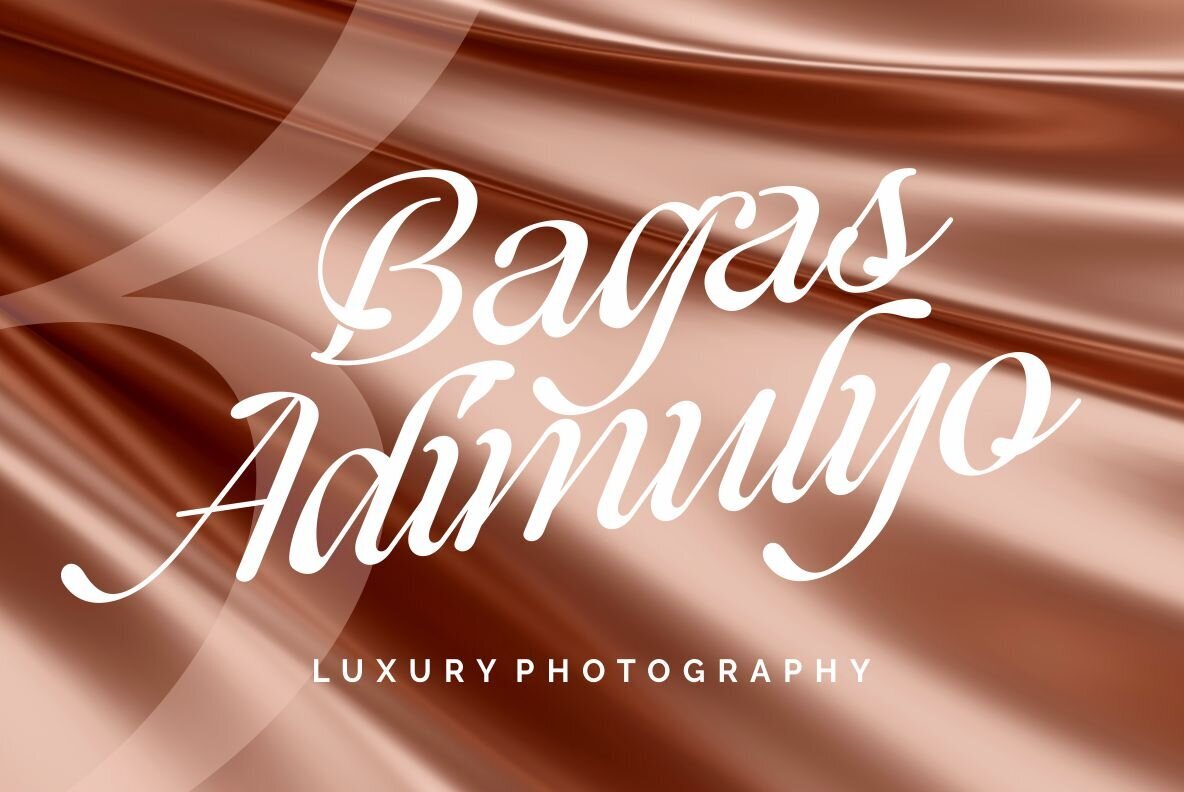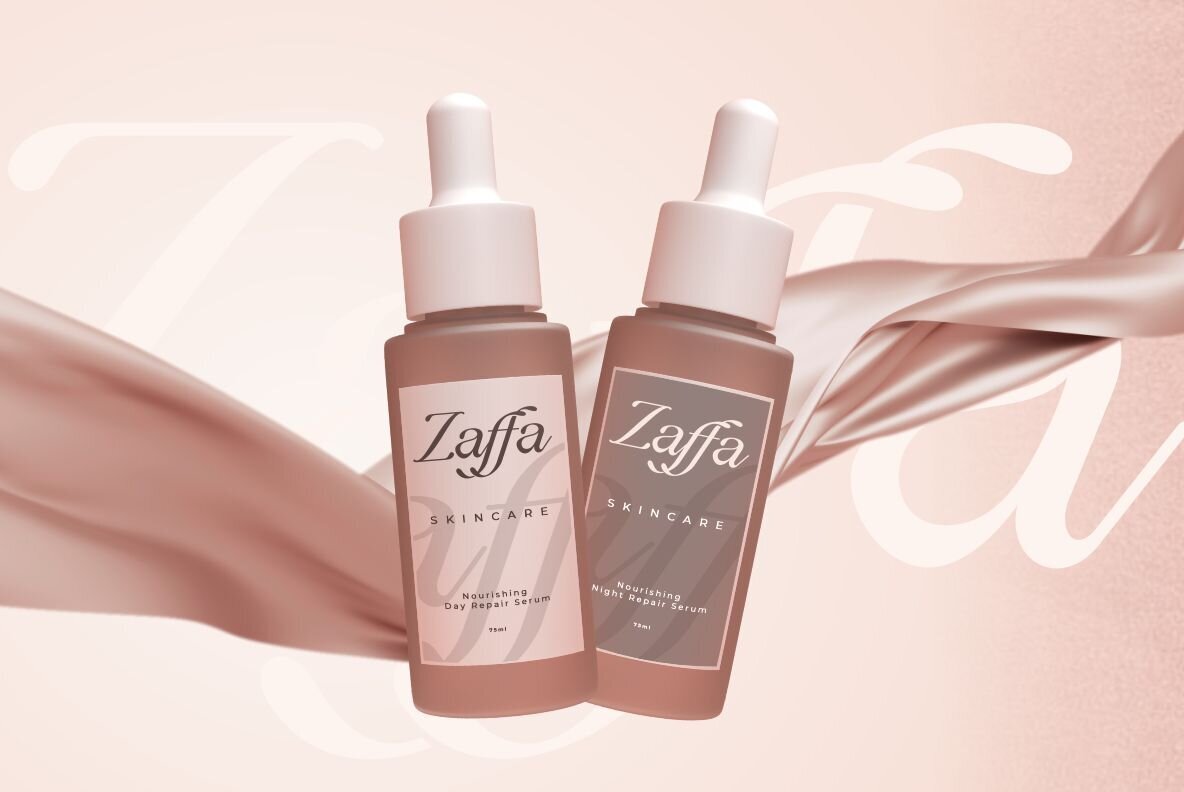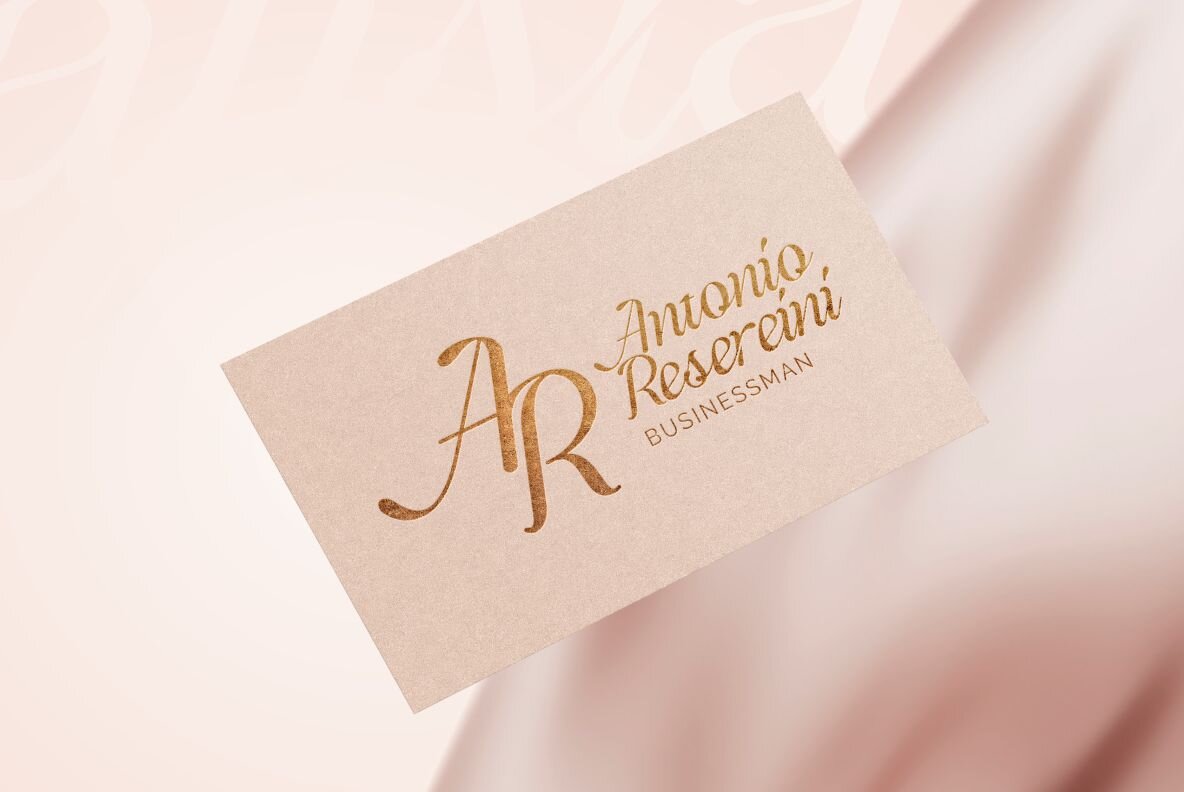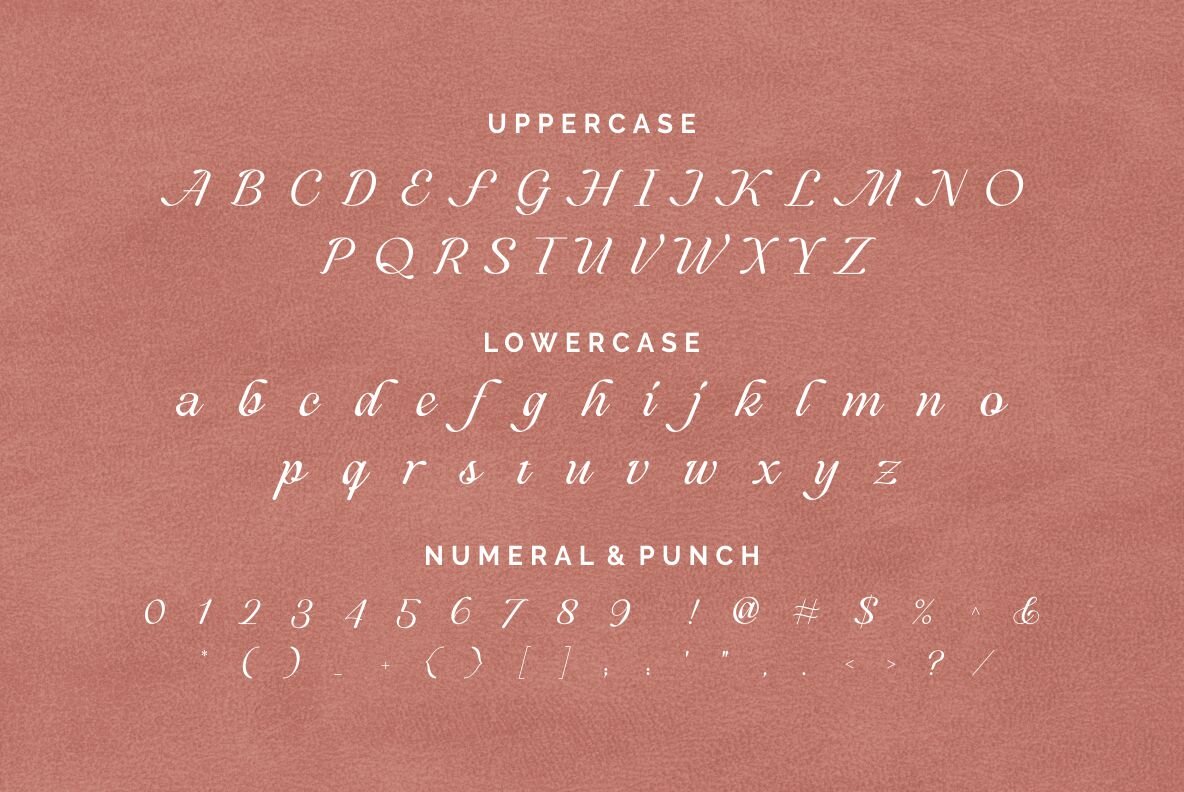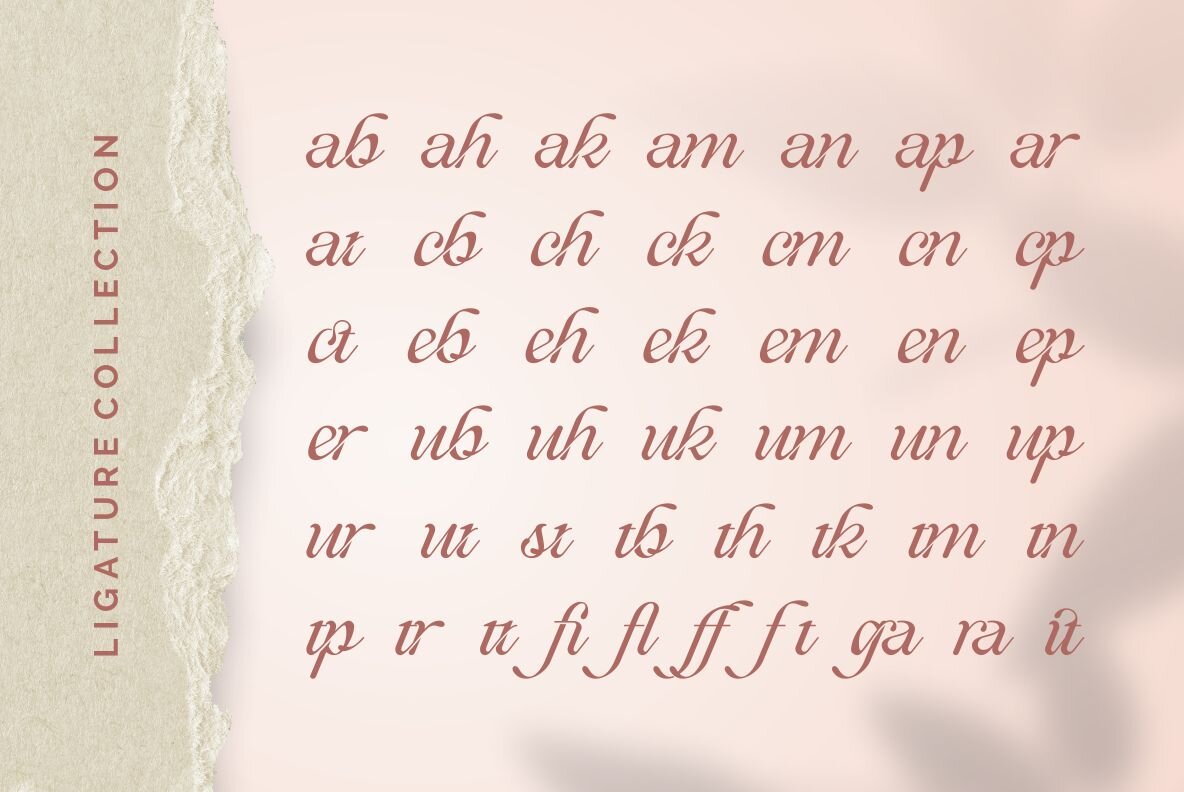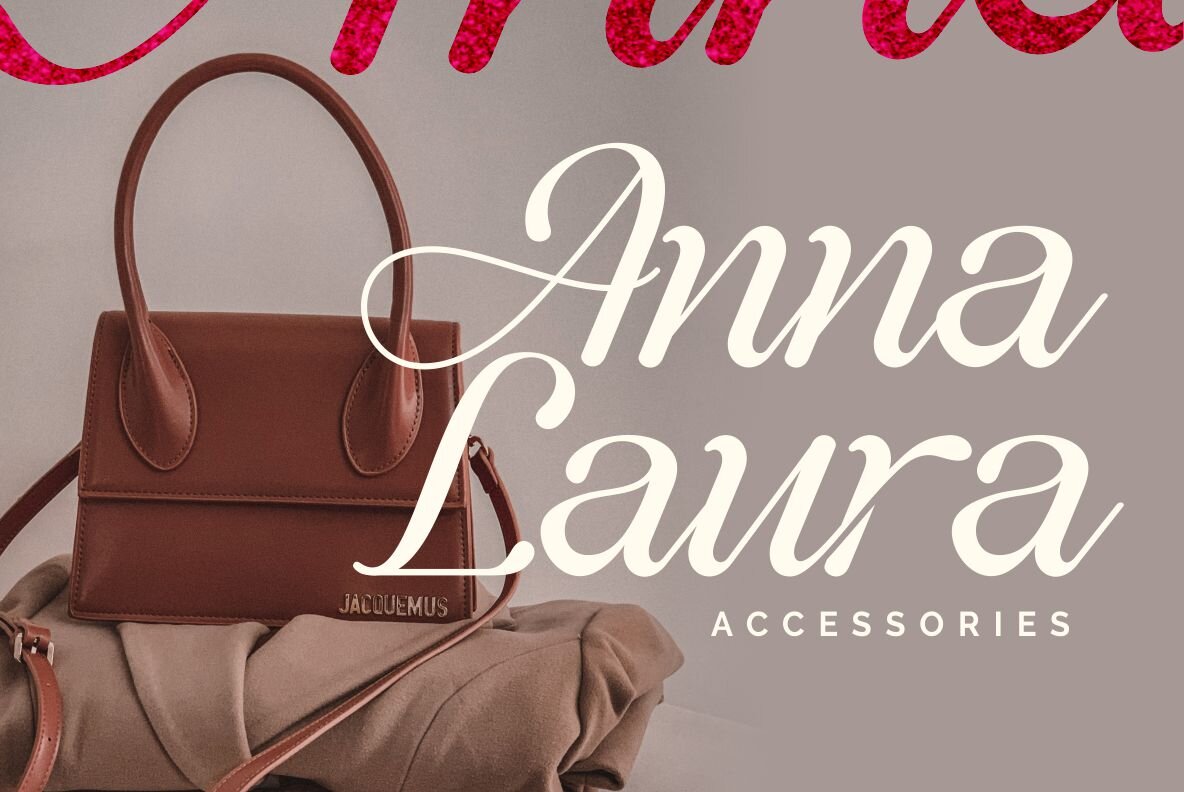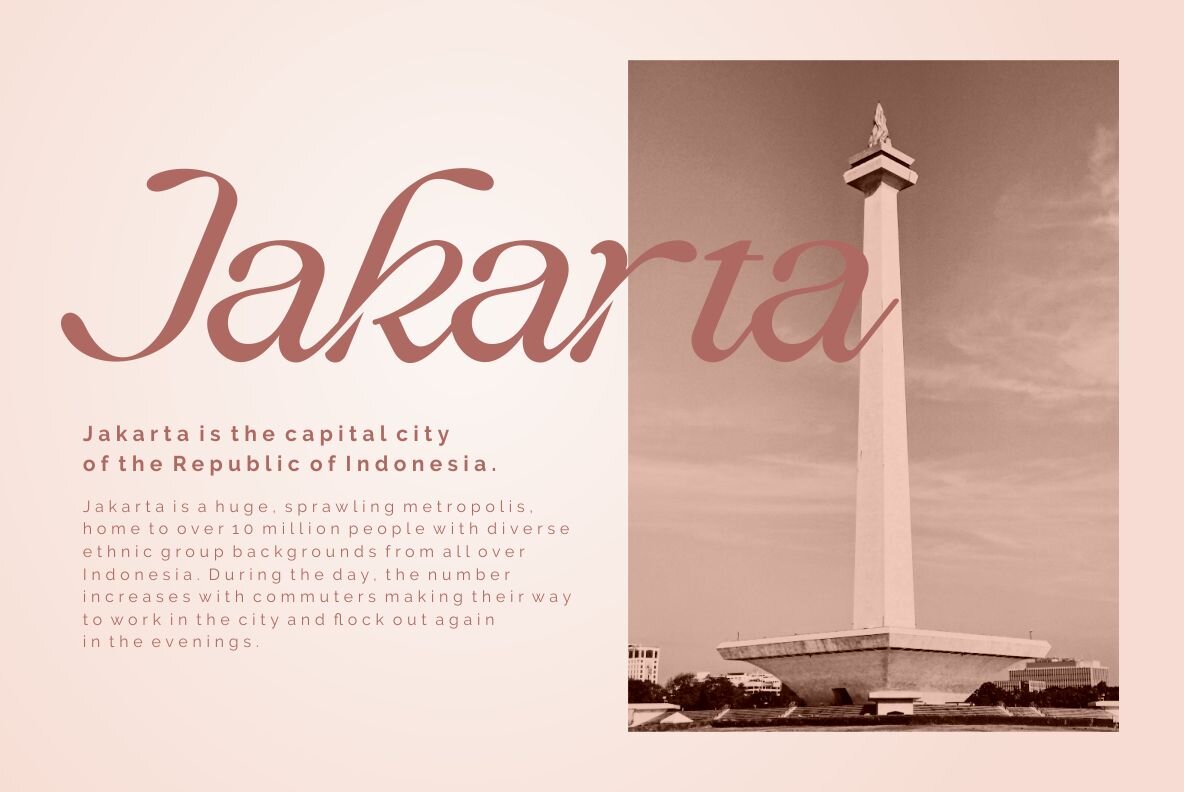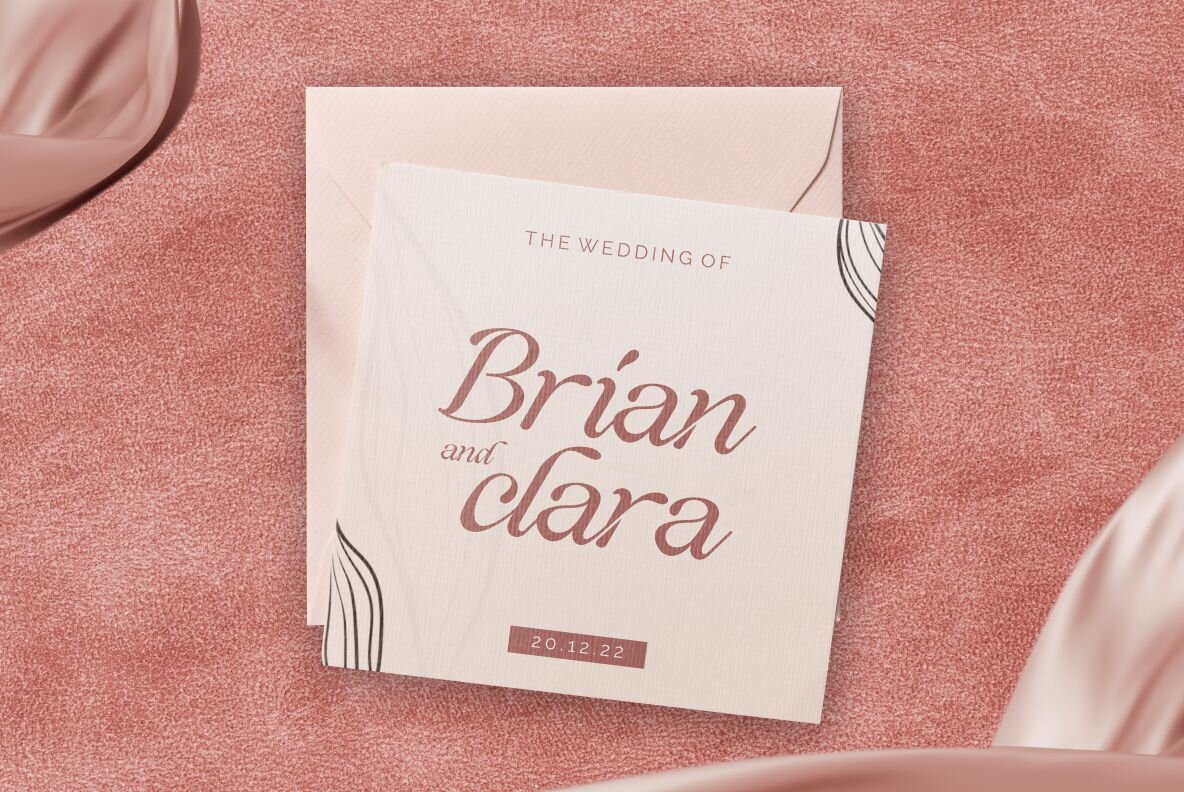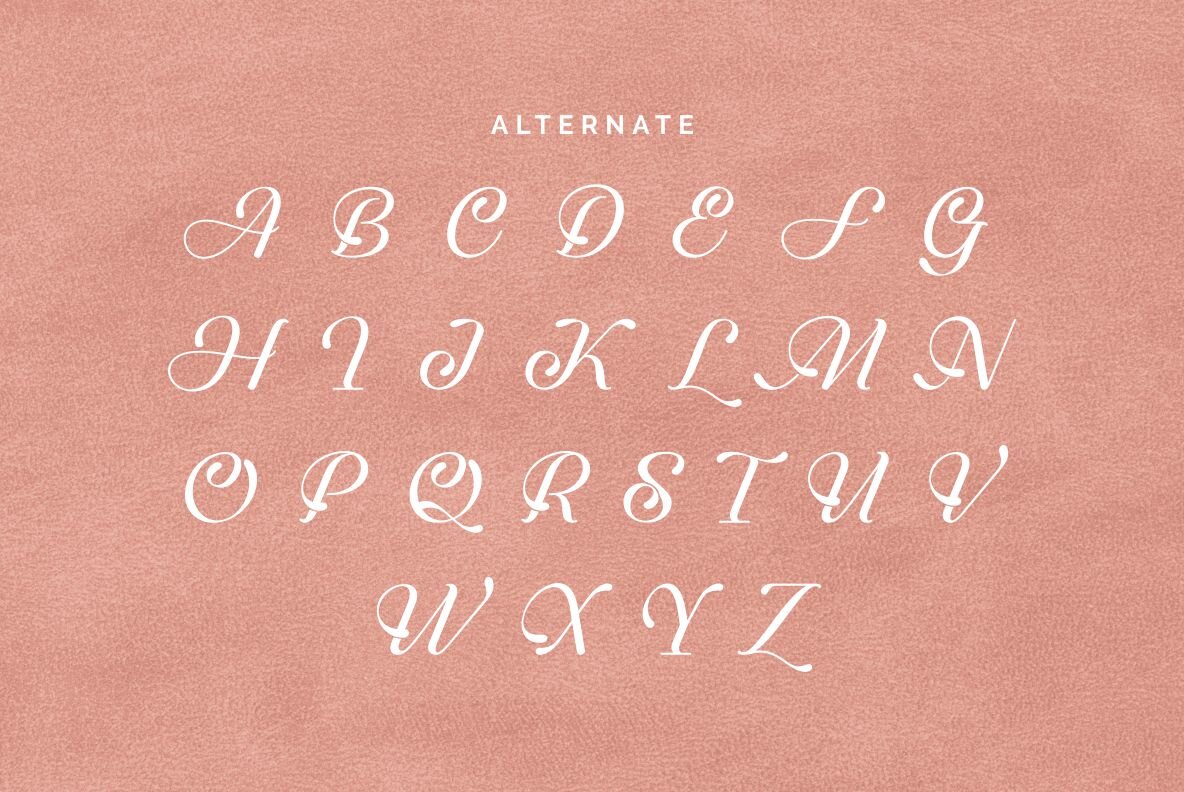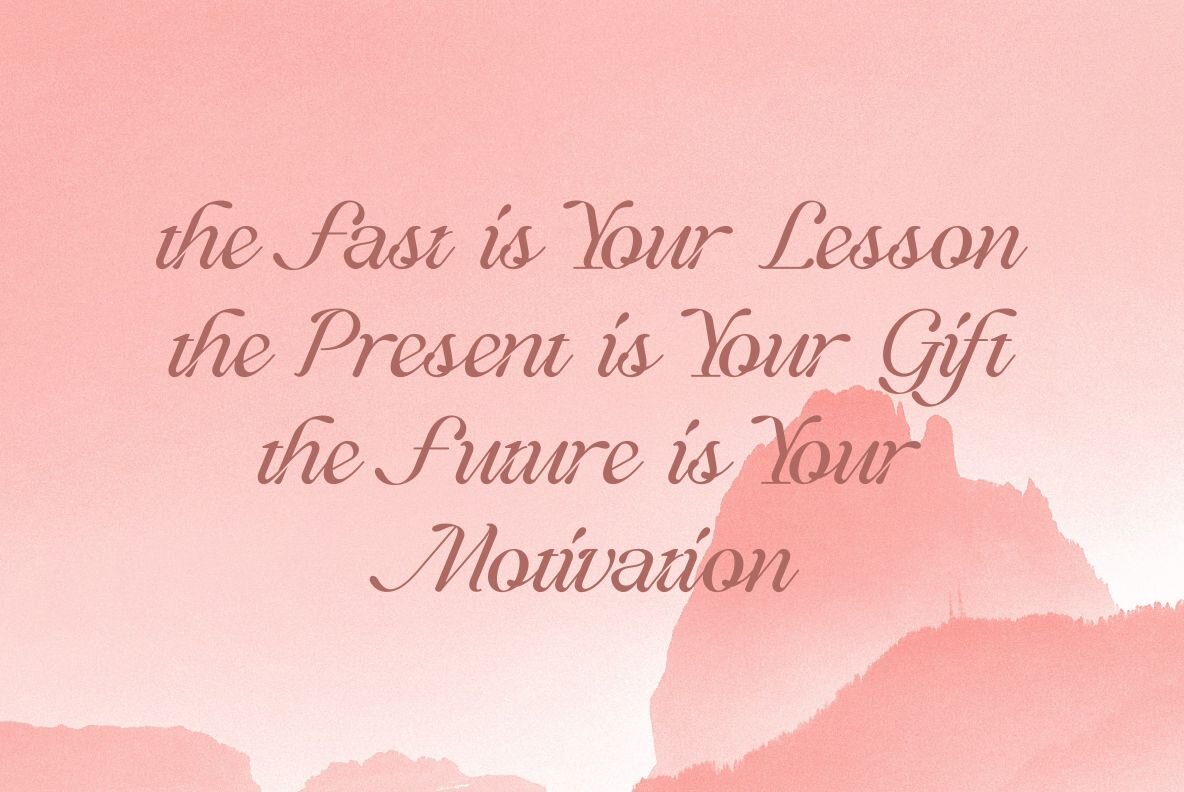
Dafista Font
Dafista Regular
Elegance meets creativity in the Dafista font—a classic choice enriched with distinct ligatures. Born from the insights of seasoned graphic designers, this font addresses the demand for a unique yet sophisticated logotype that reverberates across branding and logo design projects. Dafista suits perfectly the needs of those looking to craft a classy and distinctive identity. Whether you're aiming for a high-end brand aesthetic or a logo that stands out effortlessly, this font delivers elegance with every character.Dafista: An Elegant Classic with Unique Charm